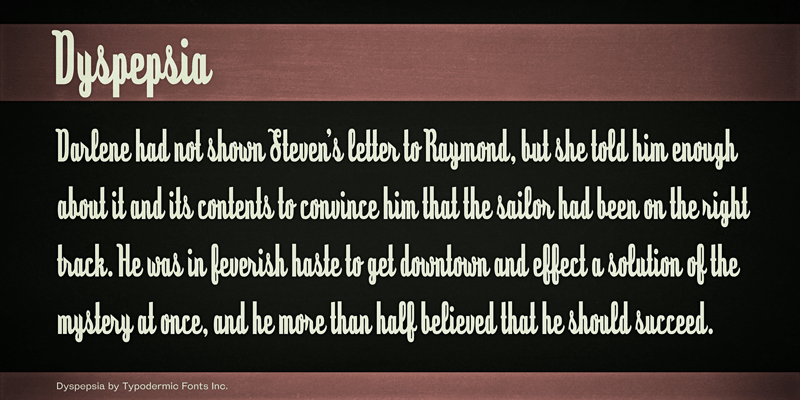
Dyspepsia is a vertical, constructed, semi-joined script. This font includes a license that allows free commercial use: sometimes referred to as a desktop license. This allows you to install the font on a computer and use it to create posters, web graphics, game graphics, t-shirts, videos, signs, logos and more. Read the license agreement for details. If you'd like to embed this font in an app, ebook, on the web or anything that's not covered by the desktop license agreement, visit the link below. You'll find distributors who offer different types of licenses or you can contact me for help. |